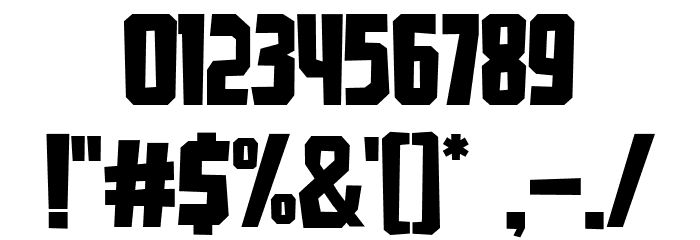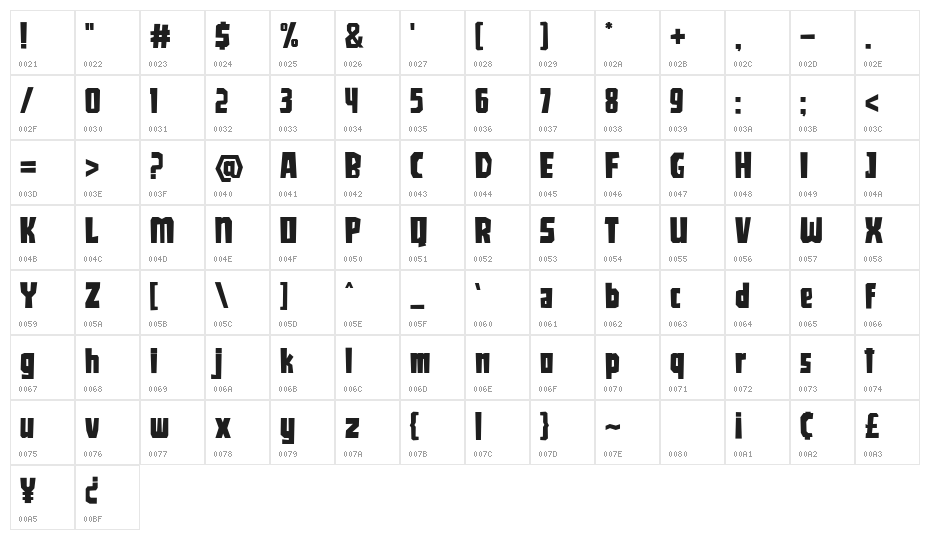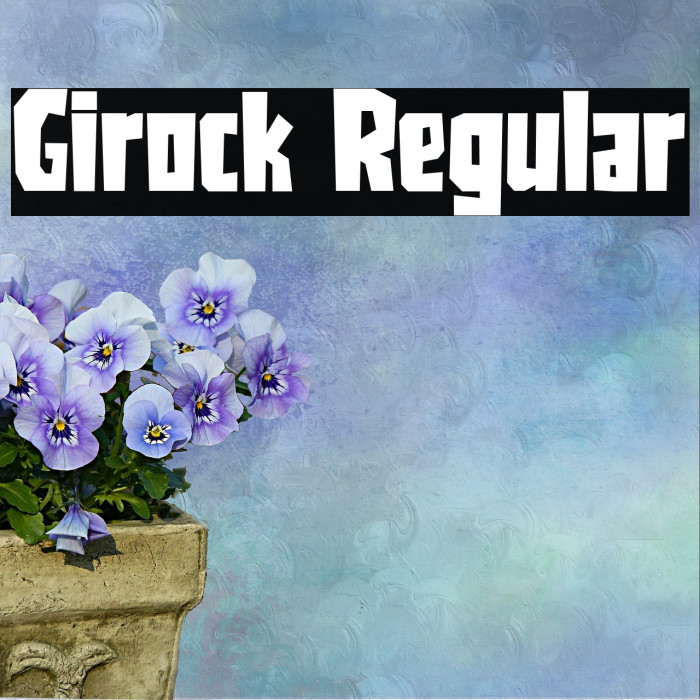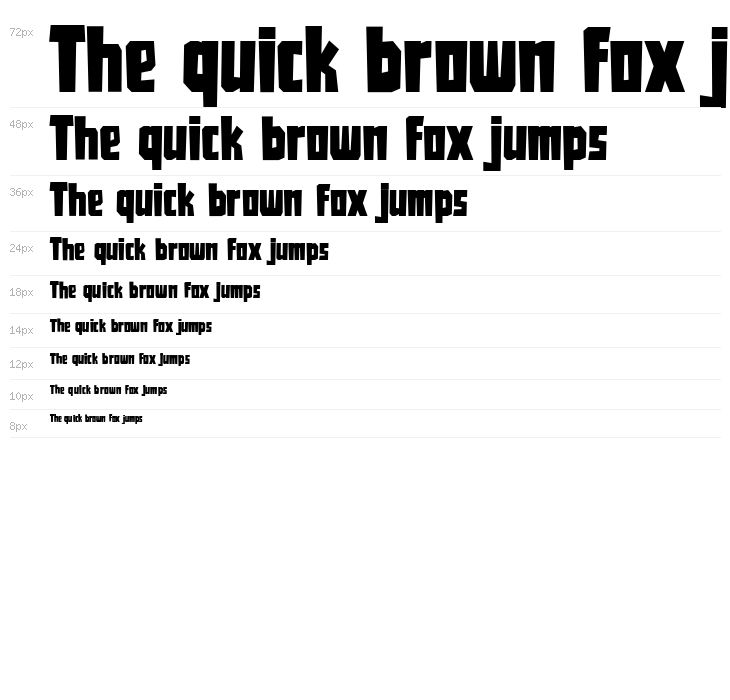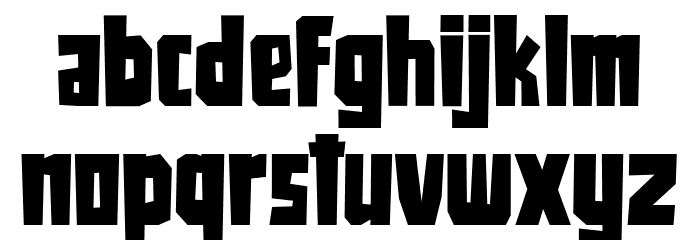
Girock Regular Font
Girock Regular Description
This font features a bold and striking design with a distinctly angular and geometric style. The characters are crafted with sharp edges and a blocky appearance, giving it a strong and impactful presence. The uppercase and lowercase letters maintain a consistent width, contributing to a uniform look across the text. The numbers and special characters are designed to match the boldness and angularity of the alphabet, ensuring a cohesive visual experience. This font's unique style makes it suitable for projects that require a modern and edgy aesthetic.
Proposed ProjectsIdeal for posters, logos, video game graphics, and branding materials that require a modern and edgy look.